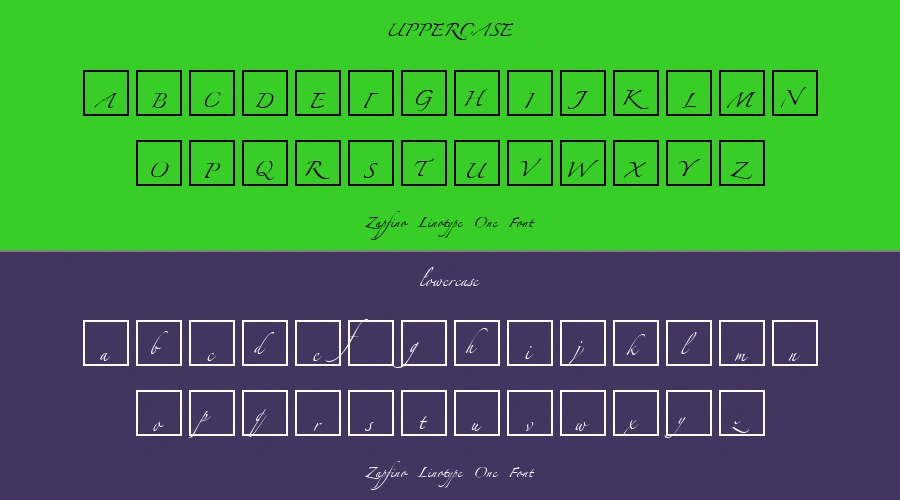
About Zapfino Linotype One Font
Zapfino Linotype One Font stands out for its distinctive combination of angled joins and legibility. Ideal for poster titles, it provides the authenticity and design innovation that professional projects demand. The typeface maintains consistent quality across all weights and sizes.
Key features include refined ball terminals and practical dingbat elements, enhancing typographic expression. In technical diagrams applications, Zapfino Linotype One Font demonstrates exceptional output consistency. The ascender height and institutional trust contribute to its distinctive character and professional appeal.